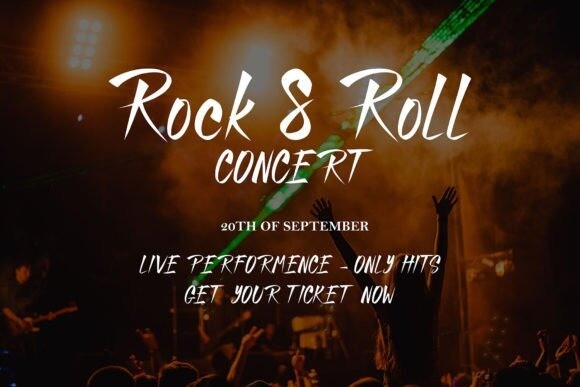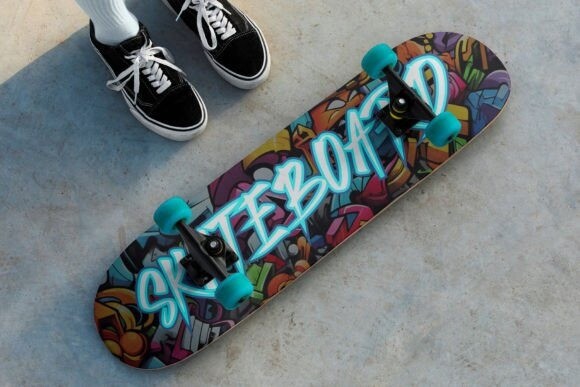
Rebel Glow Font: Infused with edgy appeal and crafted to sleek perfection, Rebel Glow takes graffiti fonts to new heights. Steeped in minimalist elegance, it blends effortlessly into modern urban aesthetics, contemporary street art ventures, and ingenious brand identities. Notwithstanding its svelte strokes, Rebel Glow asserts itself powerfully, providing a rebellious but sophisticated vibe. It’s the quintessential typeface for any endeavor intending to embody the soul of street culture with a discerning sophistication.